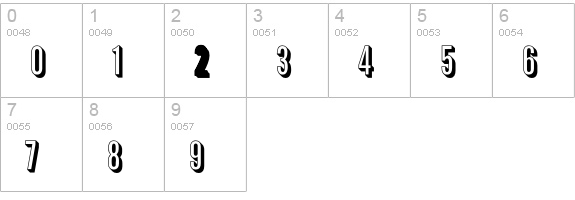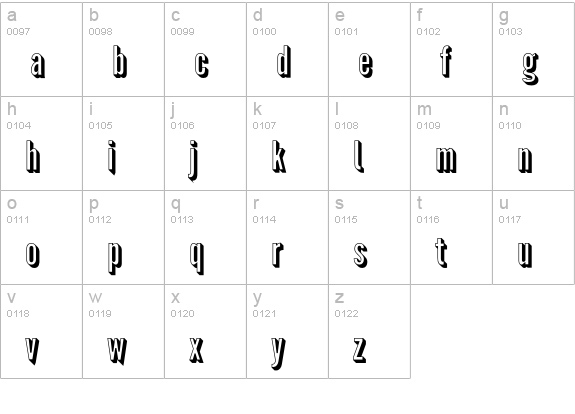
Warsaw Gothic Shadow Font Details
Introducing Warsaw Gothic Shadow, a captivating font that effortlessly combines the allure of gothic aesthetics with a touch of shadowed elegance. This font is perfect for those seeking to add a bold and mysterious element to their designs. With its intricate details and carefully crafted shadows, Warsaw Gothic Shadow stands out as a truly unique typeface. The sharp edges and dramatic lines make each character visually striking, leaving a lasting impression on anyone who encounters it. This font is not only visually appealing but also versatile. Whether you're designing a logo, creating a poster, or crafting a website, Warsaw Gothic Shadow will add a touch of sophistication and artistic flair to your projects. And the best part? Warsaw Gothic Shadow is completely free! You can easily download this font at FontsMarket.com, where it is readily available for all your creative endeavors. Embrace the freedom to experiment and unleash your imagination with this captivating typeface. So, if you're looking to make a bold statement and create designs that leave a lasting impact, look no further than Warsaw Gothic Shadow. Download it today and let your creativity soar to new heights.